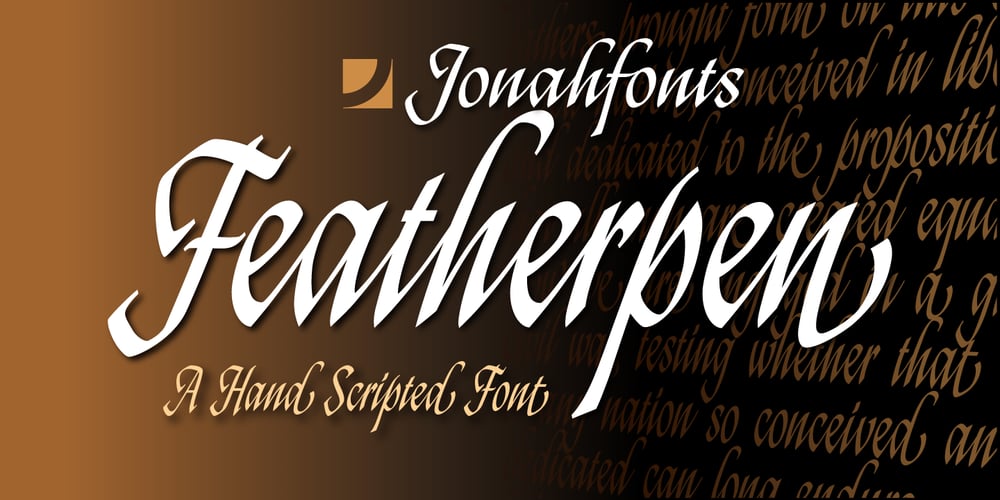
Featherpen
Featherpen font
Featherpen Font Family was designed by John Nahmias and published by Jonahfonts. Featherpen contains 2 styles and family package options. An expressive chisel script much like yesteryears— modernized to today’s standards.With added end-glyphs.